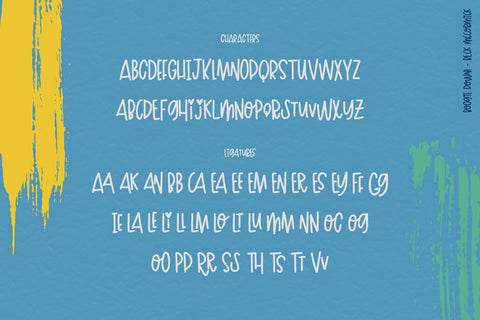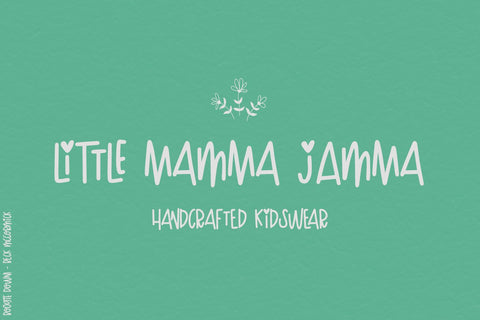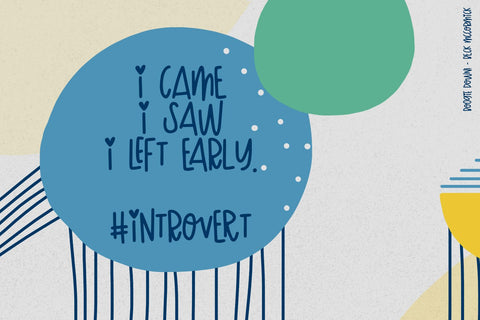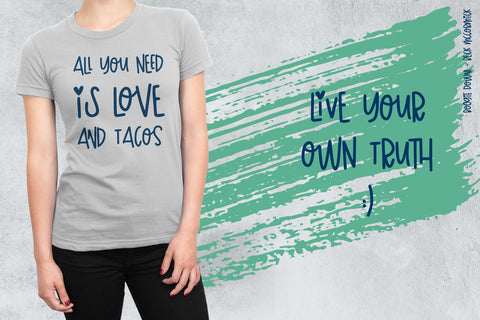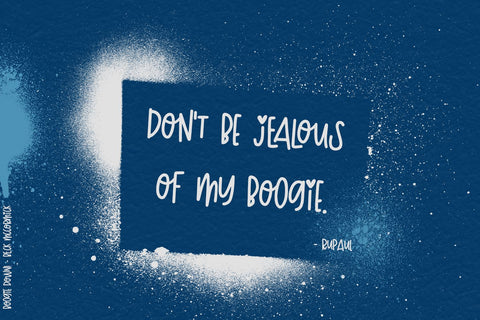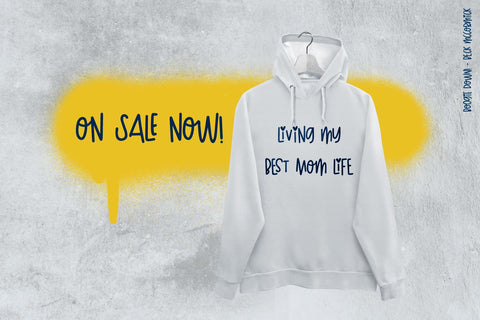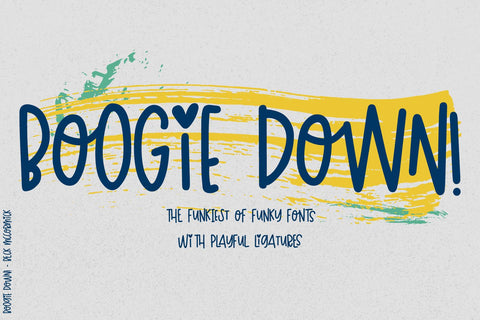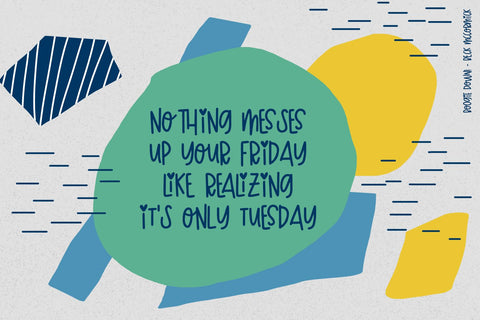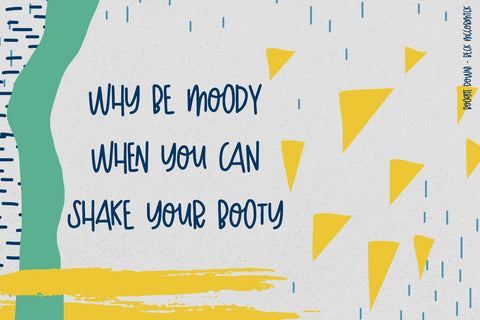
Boogie Down! Handlettered Sans Font
Say hello to Boogie Down! Boogie Down is a super playful, hand-printed sans font.
Boogie Down! will be a perfect fit for:
- logo designs or branding that is kid-centric or whimsical
- funky, sassy shirts
- design projects like greeting cards, typography creations, posters
- websites
- social media graphics + quotes
Boogie Down! includes diverse features like:
- totally different all caps characters programmed for upper + lowercase, numbers, basic punctuation, and Western European language support
- 35 ligatures for an ultra unique look